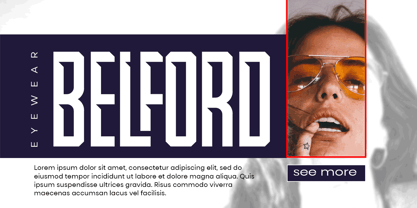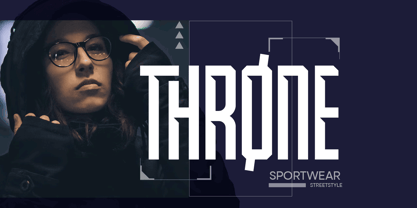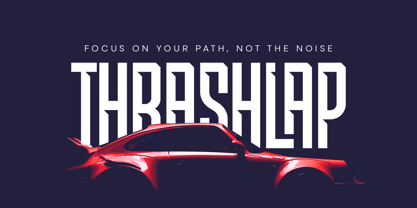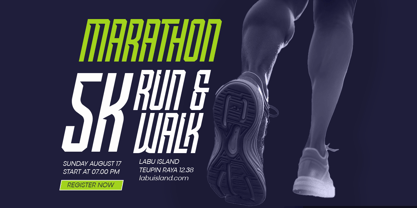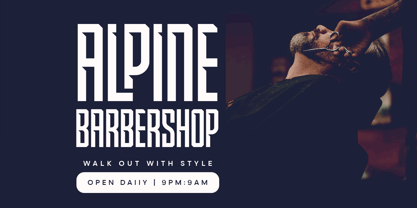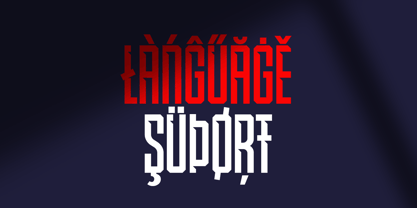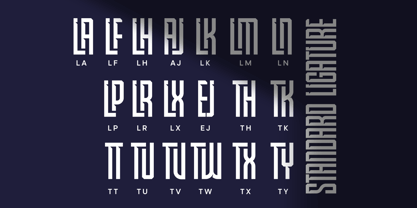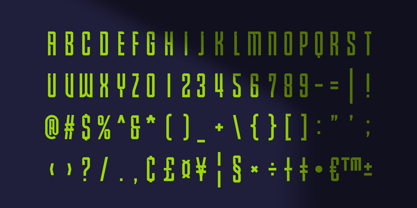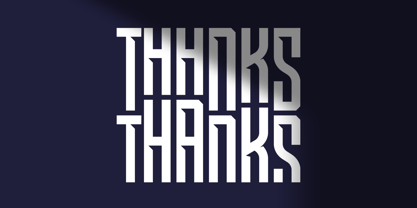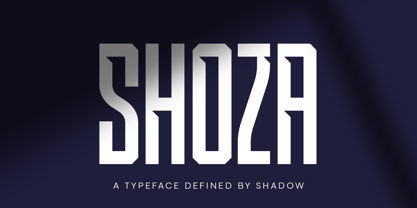
Shoza
by MMMA Creative
The Shoza Font Family was designed by Muhammad Ridha Agusni, Muhammad Mevlana Maliq Azizi and published by MMMA Creative. Shoza contains 2 styles and family package options. More about this family
Shoza is a bold, futuristic display font featuring dramatic shadow-inspired cuts. This all-caps font, where uppercase and lowercase share the same form, encourages creative ligature combinations, enhancing its distinctive visual appeal. With a tall, condensed structure, Shoza commands attention, making it an ideal choice for brand identities, logos, esports graphics, automotive designs, and capturing the energetic spirit of running or marathon events. Enhanced by crafted ligatures, multilingual support, and striking angular details, Shoza thrives in large-scale applications, transforming every word into a powerful statement.
Designers: Muhammad Ridha Agusni, Muhammad Mevlana Maliq Azizi
Foundry: MMMA Creative
MMMA Creative is an independent type foundry based in Aceh, Indonesia, founded by Muhammad Mevlana Maliq Azizi. With a love for expressive letterforms, MMMA Creative focuses on creating display, graffiti, and handwriting fonts that carry a personal and creative touch.Inspired by urban culture and the freedom of visual expression, each typeface is crafted with care—whether it's bold graffiti styles or natural handwriting. MMMA Creative is a place where letters are shaped by passion, built with a DIY spirit, and made to connect through character.